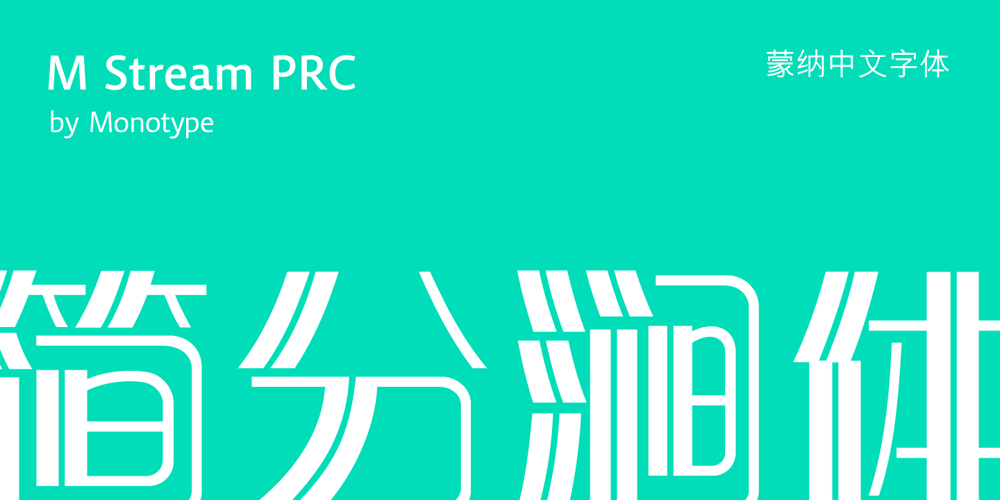
M Stream PRC
M Stream PRC font
M Stream PRC Font Family was designed by Monotype HK Design and published by Monotype HK. M Stream PRC contains 1 styles and family package options. M Stream PRC is a graphic style Simplified Chinese typeface. Graphic font designs have strong personalities and visual impact. Graphic style Simplified Chinese fonts feature decorative elements and pronounced graphics characteristics, suitable for catching attention in display applications.